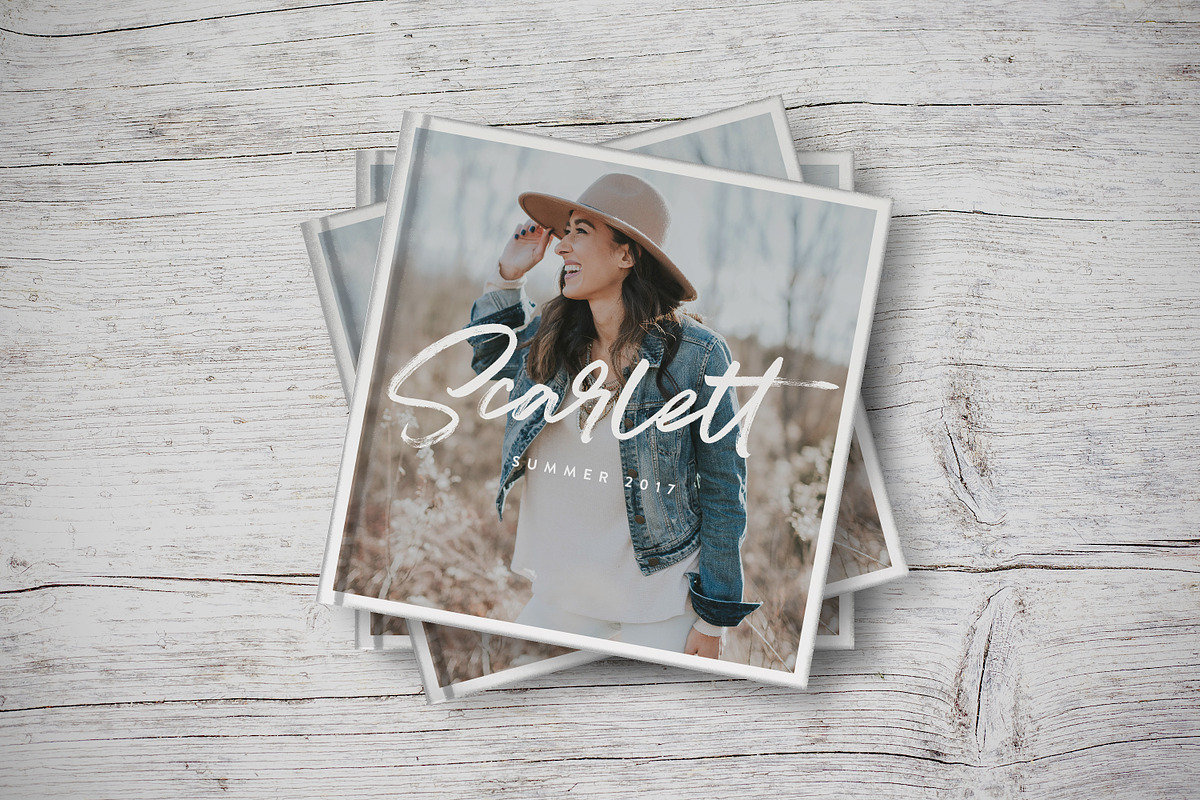
SuperFly Brush Font
SuperFly Brush Font by Sam Parrett is a font selected for branding, posters, packaging, typography.
- SuperFly One • A handmade brush font containing upper & lowercase characters, numerals and a large range of punctuation.
- SuperFly Two • This is a second version of SuperFly, with a completely new set of upper & lowercase characters.
- Swashes can be accessed simply by typing any of the 4 square brackets; [ ] { } Ligatures (double letters) are available for a select few cha
SuperFly Brush Font by Sam Parrett fits naturally into Branding, posters, packaging, typography.